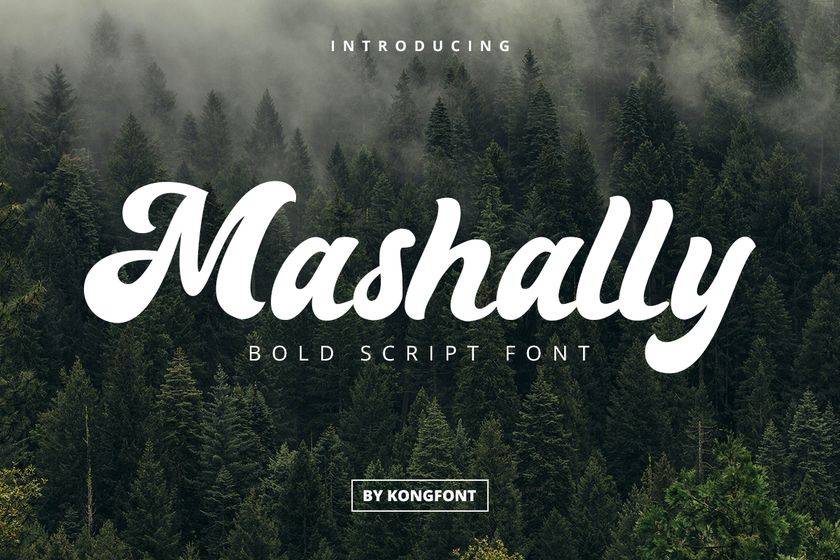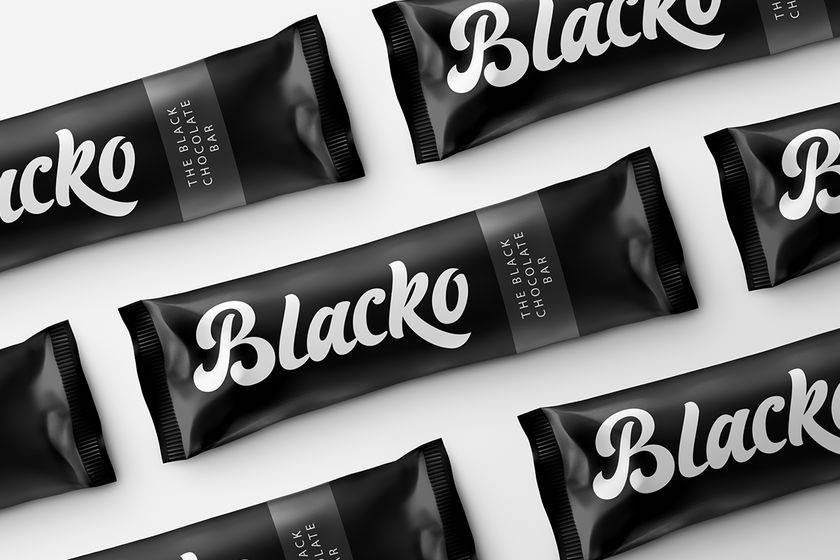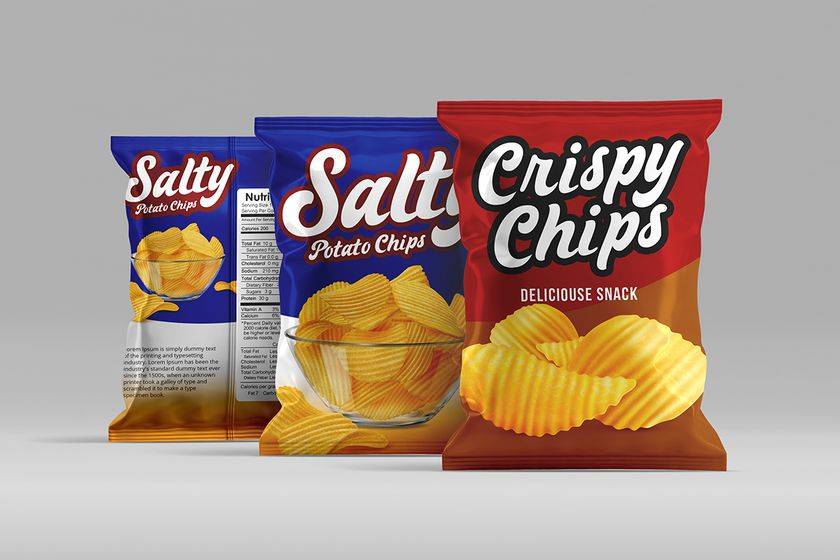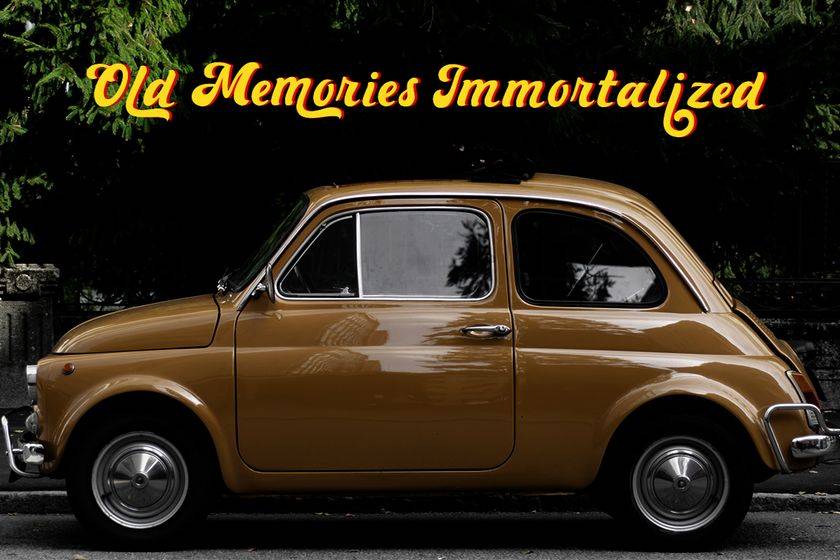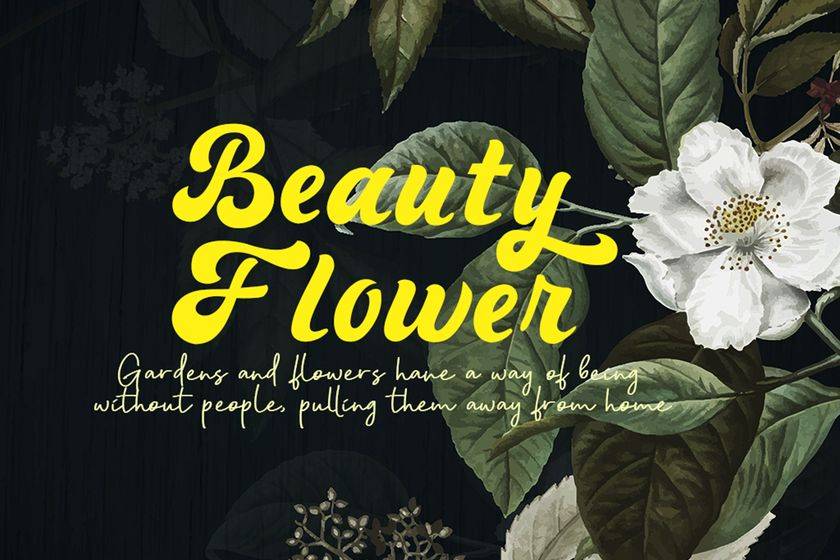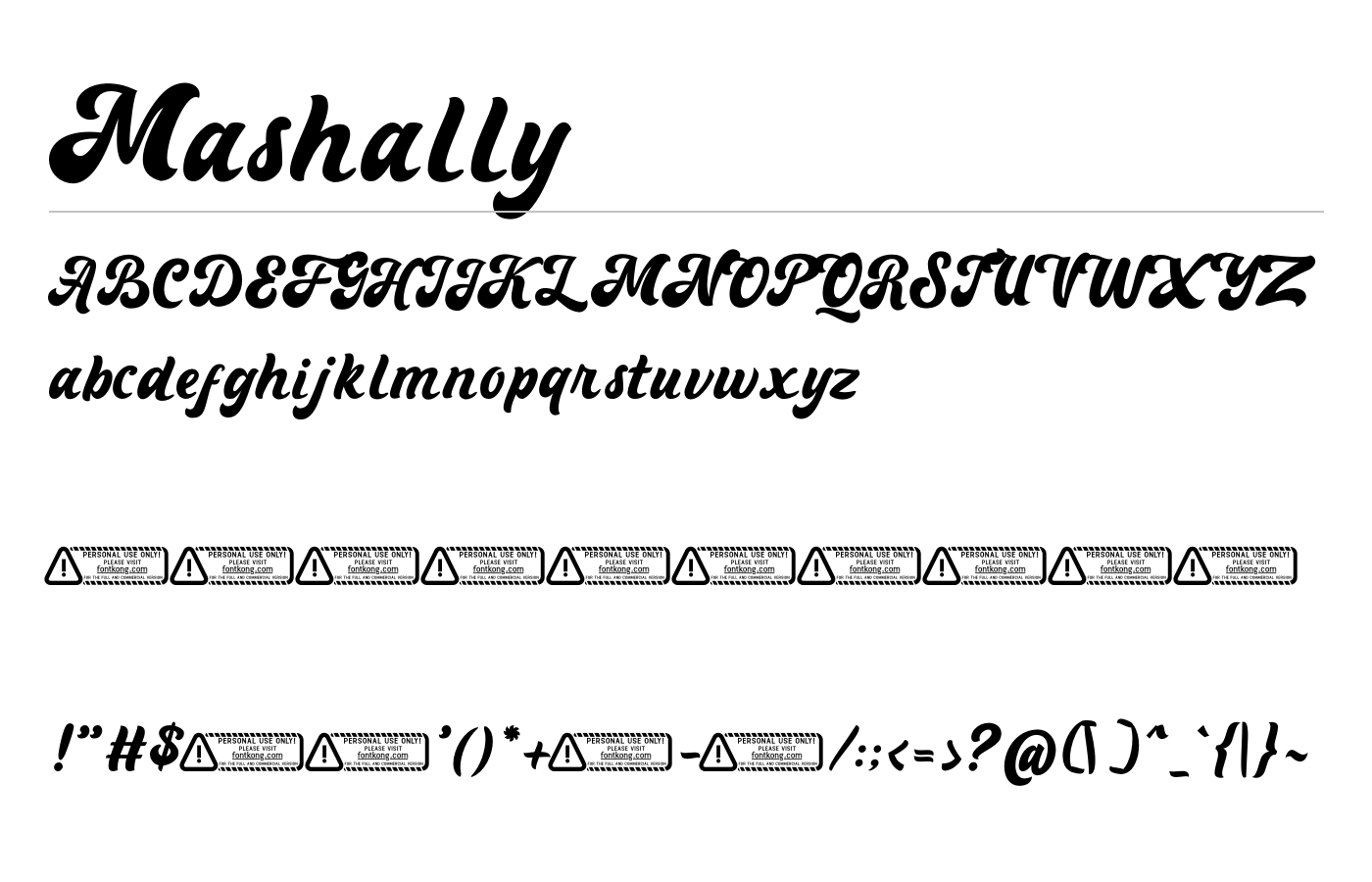
Mashally is a bold and lively script font with smooth, rounded strokes and a slightly retro flair. Its connected letterforms and elegant curves give it a playful yet polished personality, making it ideal for creative logos, branding, and eye-catching headlines that seek a friendly and distinctive touch. Perfect for designs that want to balance charm with bold presence, Mashally stands out in artistic and informal contexts.
Mashally Font
About Mashally Font
| Font family | Mashally Font |